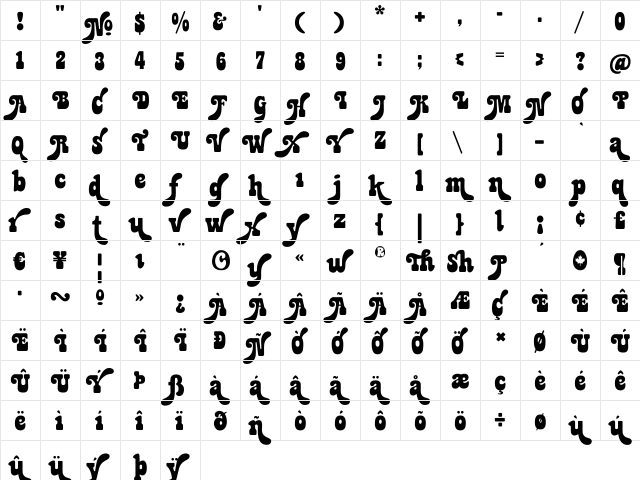
Jackpot Sweep Regular
Design Context for Jackpot Sweep Typeface
Jackpot Sweep is a composed and adaptable typeface that performs quietly and consistently across a wide range of design contexts.